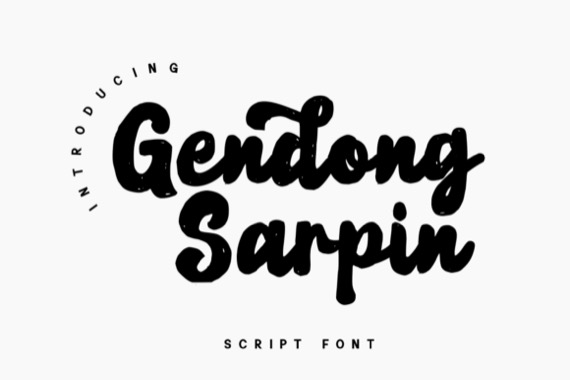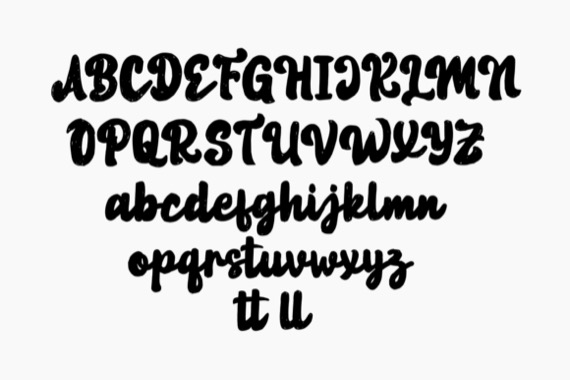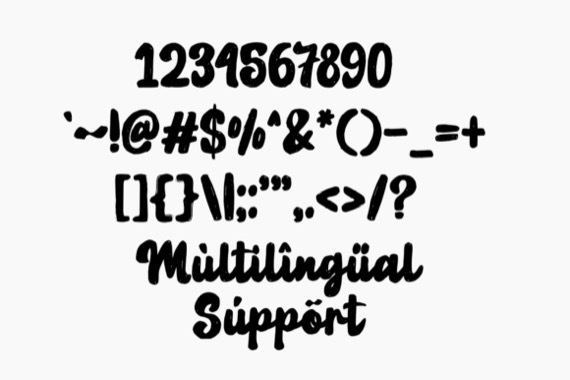
Gendong Sarpin is an elegant and fresh looking handwritten script font that was created and published by GFRcreative. This script font is ideal for use in modern designs such as magazine headers, home-ware designs, branding, product packaging, and more.
Gendong Sarpin Script Font